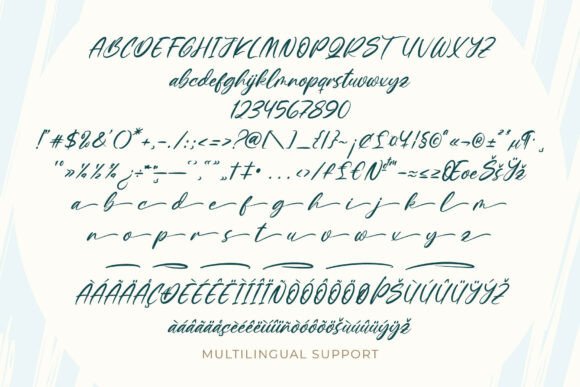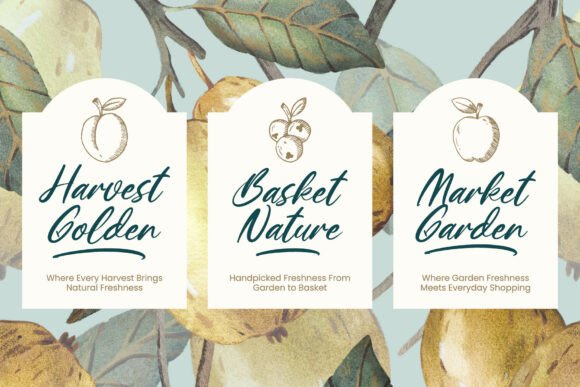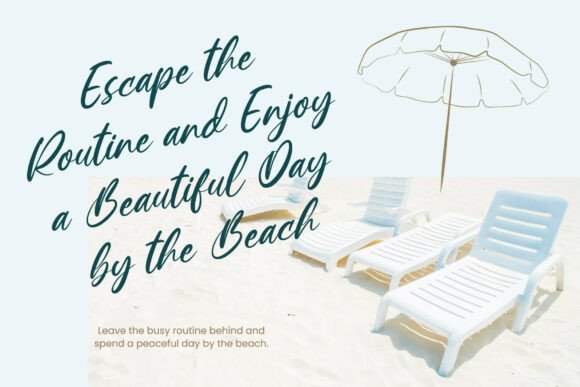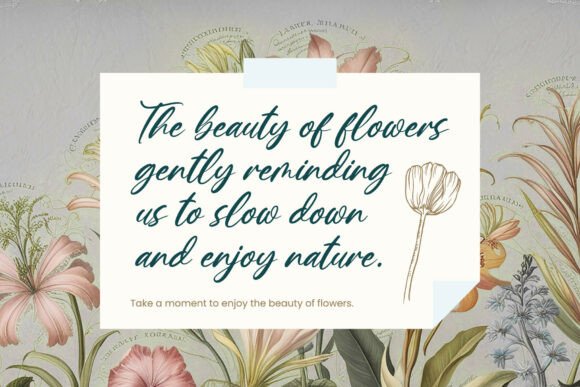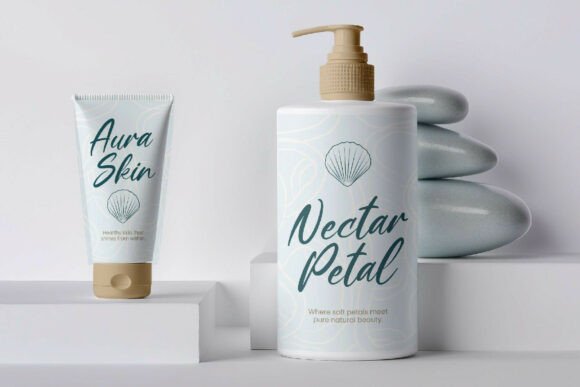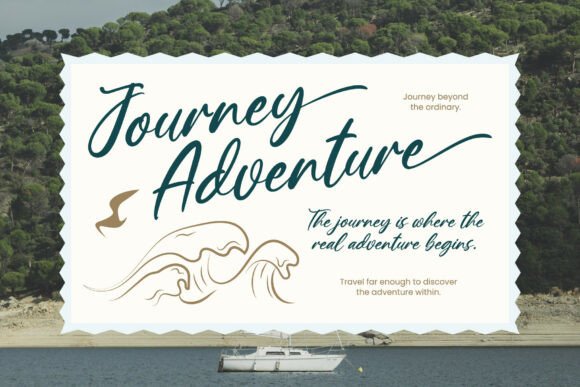
Discover the Charm of Handwritten Elegance: Delaghen Font
Have you ever been stuck on a design project, searching for that perfect font that captures the essence of your brand’s personality? We’ve all been there. As designers, we’re constantly seeking fonts that not only convey our message but also evoke emotions and create a lasting impression. For those moments when you need to add a touch of sophistication and charm to your designs, look no further than the Delaghen Font.
This elegant handwriting script font is designed to bring a sense of warmth and authenticity to your projects, making it perfect for branding materials, wedding invitations, social media graphics, or packaging. With its smooth curves and refined strokes, Delaghen Font delivers a modern look while maintaining the natural flow of real handwriting. Whether you’re a seasoned designer or just starting out, this versatile and polished script style is sure to elevate your visual compositions.
Delaghen Font Key Features
- Unique Characteristics: Delaghen Font features a unique blend of modern and vintage elements, with intricate details and ornaments that add a touch of elegance to any design.
- Language Support: The font supports a wide range of languages, including Latin, Cyrillic, and Greek alphabets, making it a versatile choice for global design projects.
- Font Style: Delaghen Font comes in a range of styles, including Regular, Italic, Bold, and Bold Italic, allowing designers to create visually appealing and balanced typography.
Delaghen Font Review
As a designer, I’ve had the opportunity to work with a wide range of fonts, and I’m excited to share my thoughts on the Delaghen font.
- Unique Character: Delaghen has a distinct, elegant feel that sets it apart from more traditional fonts. Its unique character makes it perfect for projects that require a touch of sophistication.
- Legibility: Despite its ornate appearance, Delaghen is surprisingly legible, even at smaller font sizes. This makes it a great choice for body text or headings.
- Customization: The font offers a range of customization options, allowing you to adjust the weight, size, and spacing to suit your design needs.
- Compatibility: I’ve noticed some issues with Delaghen’s compatibility across different devices and browsers. While it works well on most systems, there may be some minor rendering issues.
- Lack of Italic: The font only comes in regular and bold weights, which may limit its versatility for certain projects.
- Size Limitations: While Delaghen is legible at smaller font sizes, it may not be the best choice for extremely small text, such as in captions or footnotes.
Overall, I think Delaghen is a solid addition to any designer’s toolkit. While it may have some limitations, its unique character and customization options make it a great choice for a wide range of projects. With a bit of tweaking and experimentation, I’m confident that Delaghen can become a go-to font for many designers.
Tips for Getting the Most Out of Delaghen Font
For optimal results, use Delaghen Font for headings and titles to create a professional and modern look. Experiment with different font sizes and colors to add emphasis and visual interest.
Delaghen Font is ideal for:
- Modern branding and marketing materials
Alternatives to Delaghen Font
The Delaghen Font is a unique, modern sans-serif typeface. However, designers may find the need to explore other options for their projects. Here are a few alternatives:
Montserrat Font is a geometric sans-serif typeface that originated in Buenos Aires. It is highly versatile and suitable for a wide range of applications, including digital displays and print materials. Montserrat Font is similar to Delaghen in its modern feel, but it has a more geometric structure and a larger character set.
For optimal readability, we recommend using Delaghen Font at a font size between 12pt and 18pt, with a line height of at least 1.2 to 1.5 times the font size.
Is Delaghen Font compatible with web fonts and responsive design?
Yes, Delaghen Font is compatible with web fonts and responsive design. You can use the font on your website using web font technologies like @font-face or Google Web Fonts, and it will scale and adapt to different screen sizes and devices.